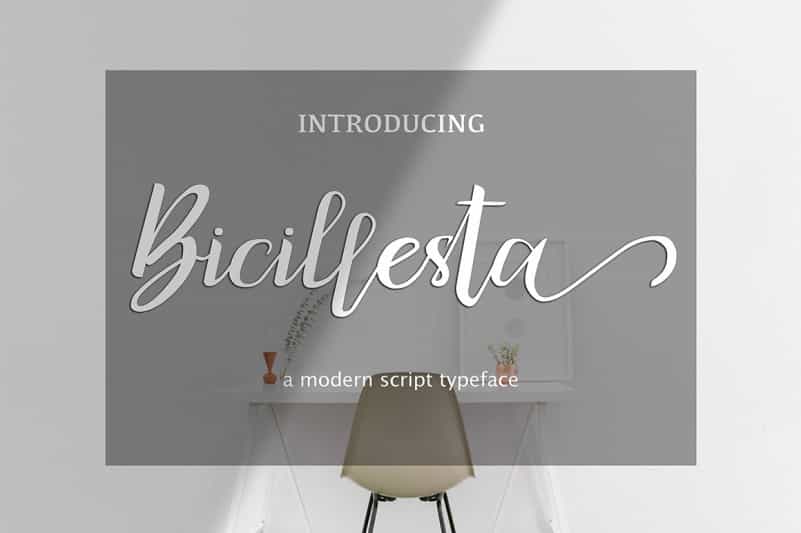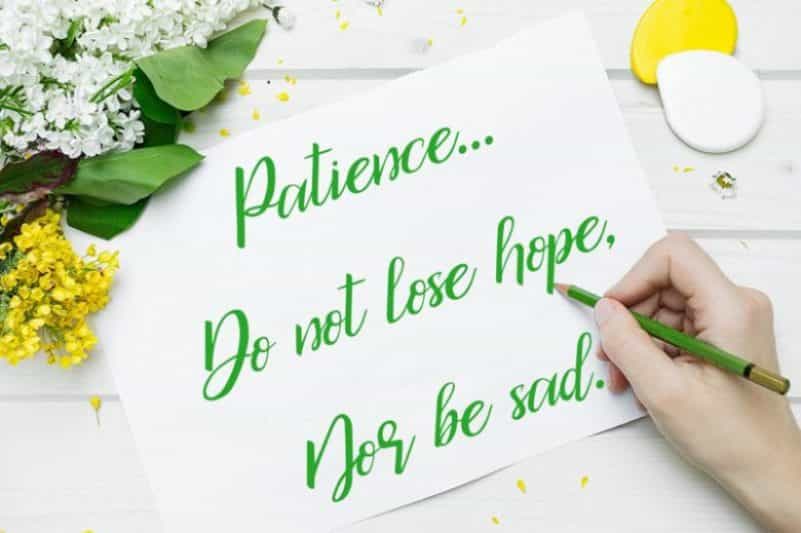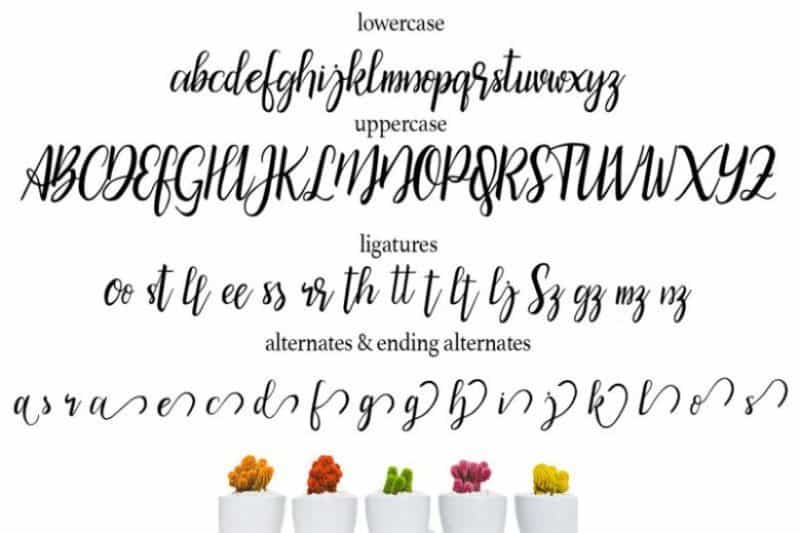
Bicillesta is a luxury font that is casual and has a unique style that is perfect for branding design, decorative characters and a dancing baseline! This one is created and posted by hikhstudio. Bicillesta Calligraphy is a beautiful new modern typeface script that is ideal for fabulous logos, premium packaging, marriage invitations, websites, and other projects that need a handwritten and posh look.